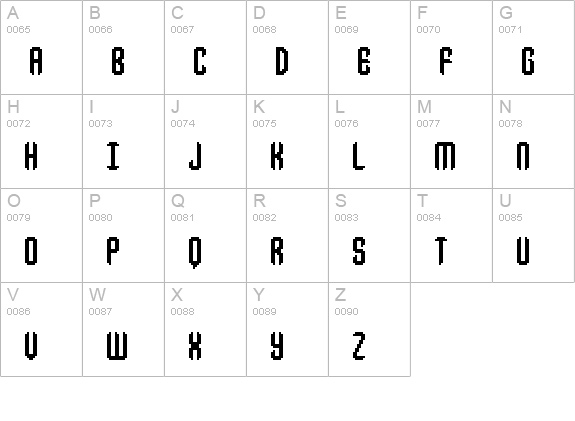
Jupiter Crash BRK Font Details
Jupiter Crash BRK font is a stunning display font that will make your designs stand out from the crowd. With its bold and unique letterforms, this font is perfect for headlines, logos, and any other design project that needs a touch of elegance and originality. The Jupiter Crash BRK font combines sleek lines with a contemporary feel, giving it a modern and sophisticated look. Its sharp edges and clean curves create a sense of movement and dynamism, making it ideal for capturing attention and making a lasting impression. One of the best things about the Jupiter Crash BRK font is that it is free! Yes, you heard that right. This incredible font is freely available to download at FontsMarket.com. Whether you're a professional designer or just someone who loves experimenting with typography, having access to high-quality fonts like this one can make a world of difference in your work. So why wait? Don't miss out on the opportunity to enhance your designs with the Jupiter Crash BRK font. Download it for free today at FontsMarket.com and let your creativity soar to new heights.